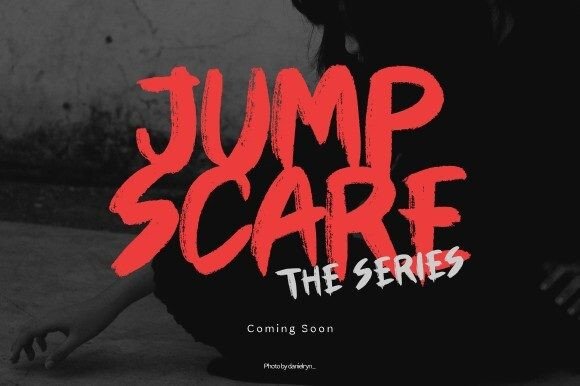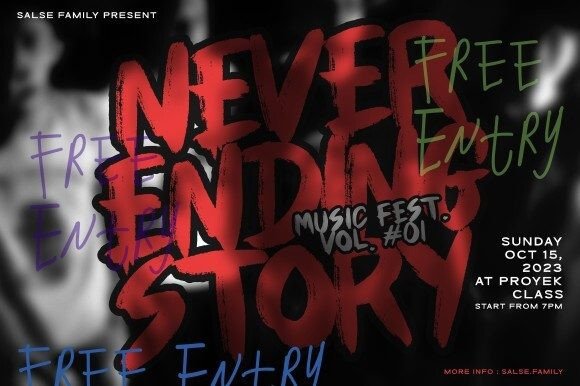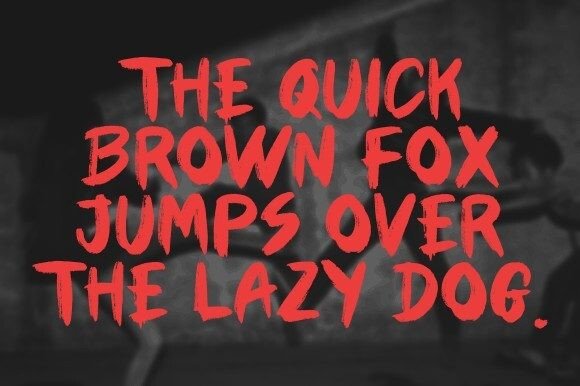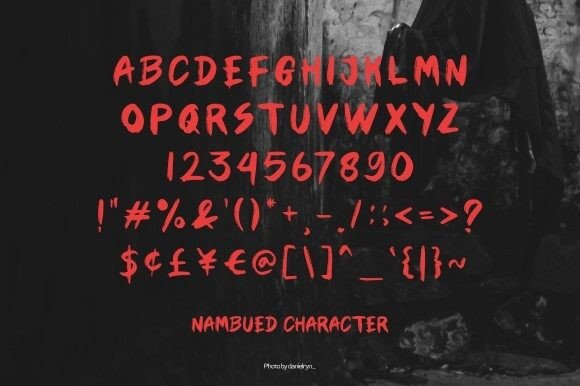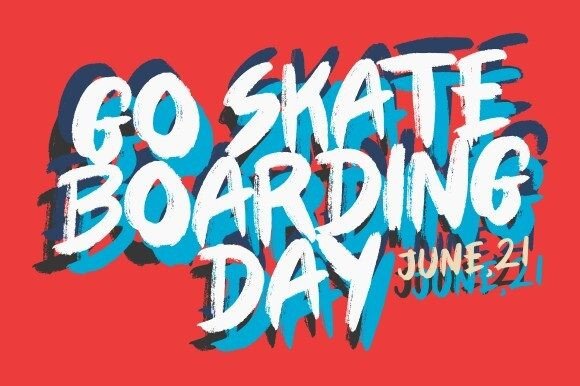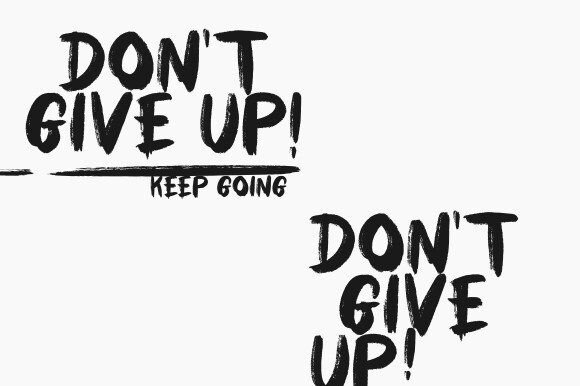
Introduction to Nambued Font
Introducing Nambued, a captivating handwritten brush font exuding boldness and unrefined charm.
Brimming with an intense yet raw style, Nambued infuses an element of intrigue into every design It can serve as a striking focal point for posters, an attention-grabbing headline for pamphlets, or lend an edgy intrigue to titles.